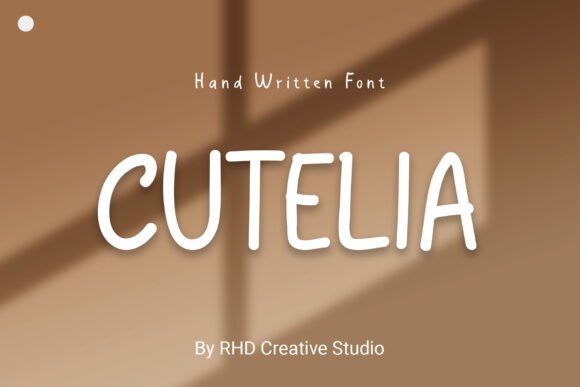
Introducing Cutelia Font: The Sweet and Friendly Handwritten Font
When it comes to creating visually appealing designs, typography plays a crucial role. A font can make or break the overall aesthetic of a project. If you’re looking for a font that exudes warmth, friendliness, and a touch of uniqueness, look no further than Cutelia Font. In this article, we’ll dive into the world of Cutelia, exploring its features, benefits, and uses.
What is Cutelia Font?
Cutelia is a sweet and friendly handwritten font that has captured the hearts of designers and typography enthusiasts alike. Its natural and unique style makes it incredibly fitting to a large pool of designs. The only limit is your imagination! Whether you’re working on a branding project, a marketing campaign, or a personal creative endeavor, Cutelia Font is an excellent choice.
Key Features of Cutelia Font
- Handwritten style: Cutelia boasts a beautiful, handwritten aesthetic that adds a personal touch to any design.
- Unique and natural: The font’s unique and natural style sets it apart from more traditional fonts, making it perfect for projects that require a bit of personality.
- Versatile: Cutelia Font is incredibly versatile, making it suitable for a wide range of designs, from elegant and sophisticated to playful and whimsical.
- Easy to read: Despite its unique style, Cutelia Font remains easy to read, ensuring that your message is conveyed clearly and effectively.
Design Uses for Cutelia Font
Cutelia Font is an excellent choice for various design projects, including:
- Branding and logos: Create a lasting impression with a custom logo that showcases your brand’s personality.
- Marketing materials: Use Cutelia Font in brochures, flyers, and posters to add a touch of warmth and friendliness to your marketing campaigns.
- Packaging design: Make your product stand out on store shelves with custom packaging that features Cutelia Font.
- Digital media: Use Cutelia Font in social media graphics, blog posts, and website designs to create a cohesive and visually appealing online presence.
Pairing Cutelia Font with Other Fonts
To create visually stunning designs, it’s essential to pair Cutelia Font with complementary fonts. Here are some suggestions:
- Serif fonts: Pair Cutelia Font with serif fonts like Georgia or Merriweather to create a beautiful contrast between modern and traditional typography.
- Script fonts: Combine Cutelia Font with other script fonts, like Pacifico or Great Vibes, to create a cohesive and elegant look.
- Sans-serif fonts: Pair Cutelia Font with sans-serif fonts like Open Sans or Lato to create a clean and modern design.
Tips and Tricks for Using Cutelia Font
To get the most out of Cutelia Font, keep the following tips in mind:
- Use it sparingly: While Cutelia Font is beautiful, it’s essential to use it sparingly to avoid overwhelming the design.
- Experiment with sizes: Play around with different font sizes to create visual hierarchy and add emphasis to specific design elements.
- Pay attention to spacing: Ensure that the spacing between letters and lines is optimal to maintain readability and aesthetics.
In conclusion, Cutelia Font is an exceptional handwritten font that can elevate your designs to new heights. Its unique and natural style, versatility, and ease of readability make it an excellent choice for various design projects. By following the tips and tricks outlined in this article, you’ll be able to unlock the full potential of Cutelia Font and create stunning designs that leave a lasting impression.